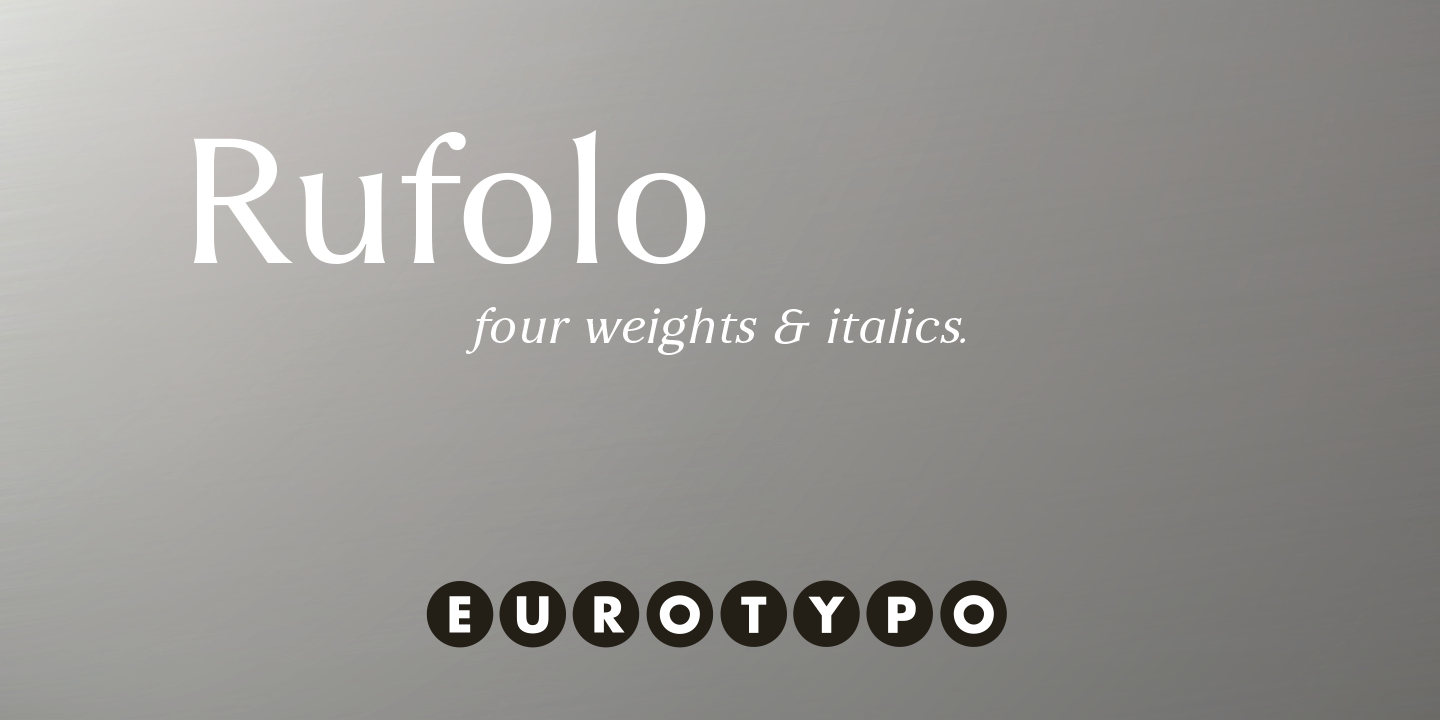
Rufolo Font excels in elegant design applications including luxury Italian restaurant branding, wine estate communications, fine dining menu designs, artisanal food packaging, Mediterranean lifestyle brands, boutique hotel signage, classical music concert programs, art gallery exhibitions, high-end fashion labels, and sophisticated cultural event materials. This refined typeface seamlessly combines Italian Renaissance elegance with contemporary sophistication, making it an essential tool for designers working on projects that demand cultural authenticity, timeless beauty, and aristocratic refinement.
What makes Rufolo Font particularly exciting is its masterful interpretation of classical Italian calligraphy traditions blended with modern typographic precision that creates an unmistakably sophisticated and culturally rich character. The font features graceful letterforms with subtle flourishes and refined proportions that evoke the artistic heritage of Italian Renaissance manuscripts and architectural inscriptions. Its elegant construction incorporates traditional calligraphic elements with contemporary readability standards, creating perfect harmony between historical authenticity and modern functionality. The typeface's ability to convey both luxury and cultural sophistication makes it perfect for brands seeking to establish connections with Italian heritage and European elegance. Each character has been meticulously crafted to reflect the artistic mastery of Italian design traditions while ensuring optimal performance across contemporary design applications and international markets.
The Rufolo Font family encompasses refined variations including Light, Regular, Medium, Bold, and Elegant Script styles, each maintaining the core Italian aesthetic while offering distinct levels of formality and visual presence. The family also features condensed versions for space-conscious luxury applications and extended variants for grand headline treatments. Special decorative cuts may include ornamental capitals, flourished alternates, and classical ligatures that enhance the font's aristocratic character and provide authentic Italian typographic sophistication for premium branding applications.
Luxury brand professionals consistently choose Rufolo Font Free Download for projects requiring authentic Italian elegance and sophisticated cultural appeal. This remarkable typeface has gained recognition in the luxury market for its ability to communicate heritage, quality, and refined taste through thoughtful typographic design inspired by Italian artistic traditions. The font's comprehensive OpenType features include stylistic alternates, classical ligatures, and ornamental elements that support sophisticated luxury branding and authentic Italian cultural communication.
Whether you're developing Italian restaurant identities, creating luxury wine branding, designing cultural event materials, or crafting high-end fashion communications, Rufolo Font delivers exceptional results. Its elegant aesthetic makes it particularly suitable for Italian cuisine establishments, luxury travel brands, cultural institutions, fine art galleries, and premium lifestyle companies seeking to communicate sophistication, heritage, and Italian cultural authenticity through their visual identity.
The font's technical specifications ensure flawless performance across all luxury branding applications while preserving its classical Italian character. It includes comprehensive Unicode support for international luxury markets, making it suitable for global Italian brands and multilingual cultural projects. The careful optimization guarantees elegant rendering across various premium media, maintaining the font's sophisticated qualities whether displayed on luxury packaging or reproduced in high-end print materials.
Professional designers appreciate Rufolo Font's ability to convey Italian heritage and luxury sophistication while maintaining commercial effectiveness and brand distinction. Its aristocratic presence creates immediate associations with quality and cultural refinement while remaining highly functional for comprehensive luxury branding systems. The font's Italian-inspired design helps organizations establish premium market positioning while connecting with audiences who appreciate cultural authenticity, artistic heritage, and sophisticated European design traditions.